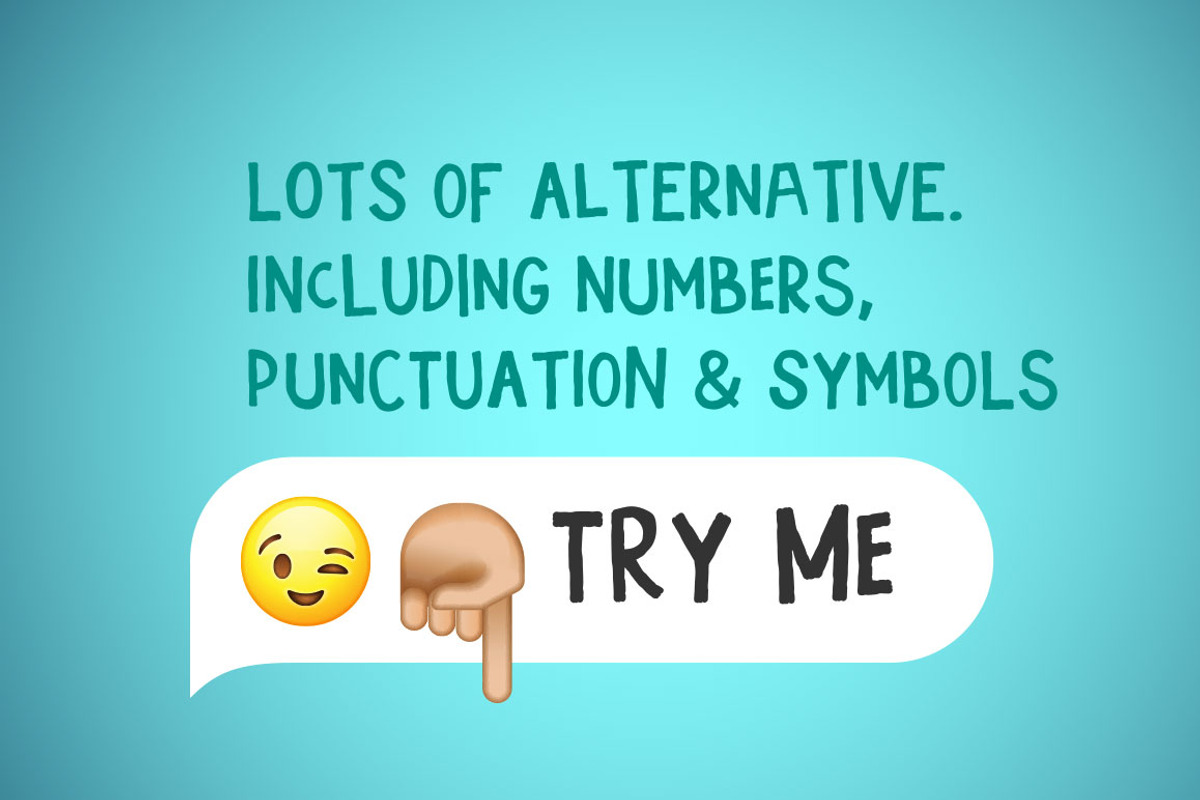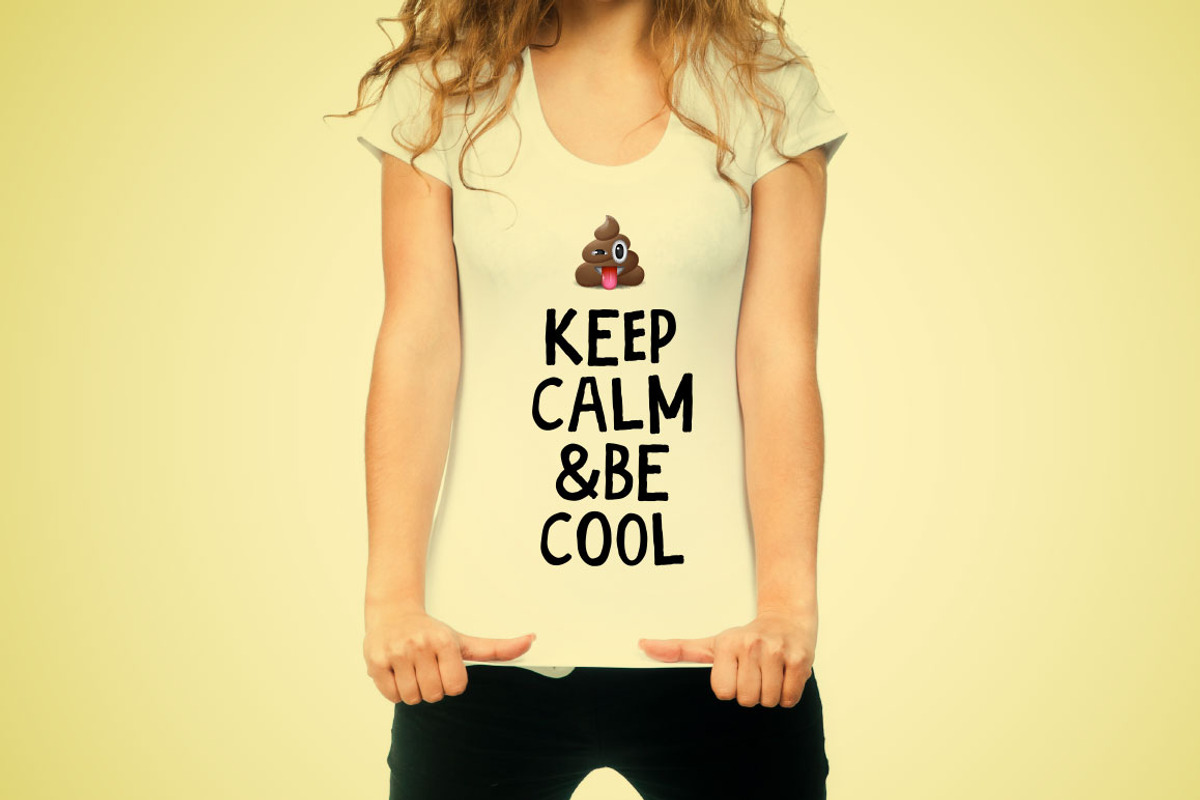
Kidzoo typeface
Kidzoo typeface by PREMIUMVECTOR is a font selected for branding, posters, packaging, typography.
- I'm Kidzoo typeface with lots of stylistic alternates for all letters and number.
- Including glyphs, numerals, punctuation and symbols.
- Kidzoo Regular
Why Kidzoo typeface is worth a look
Kidzoo typeface by PREMIUMVECTOR fits naturally into Branding, posters, packaging, typography.